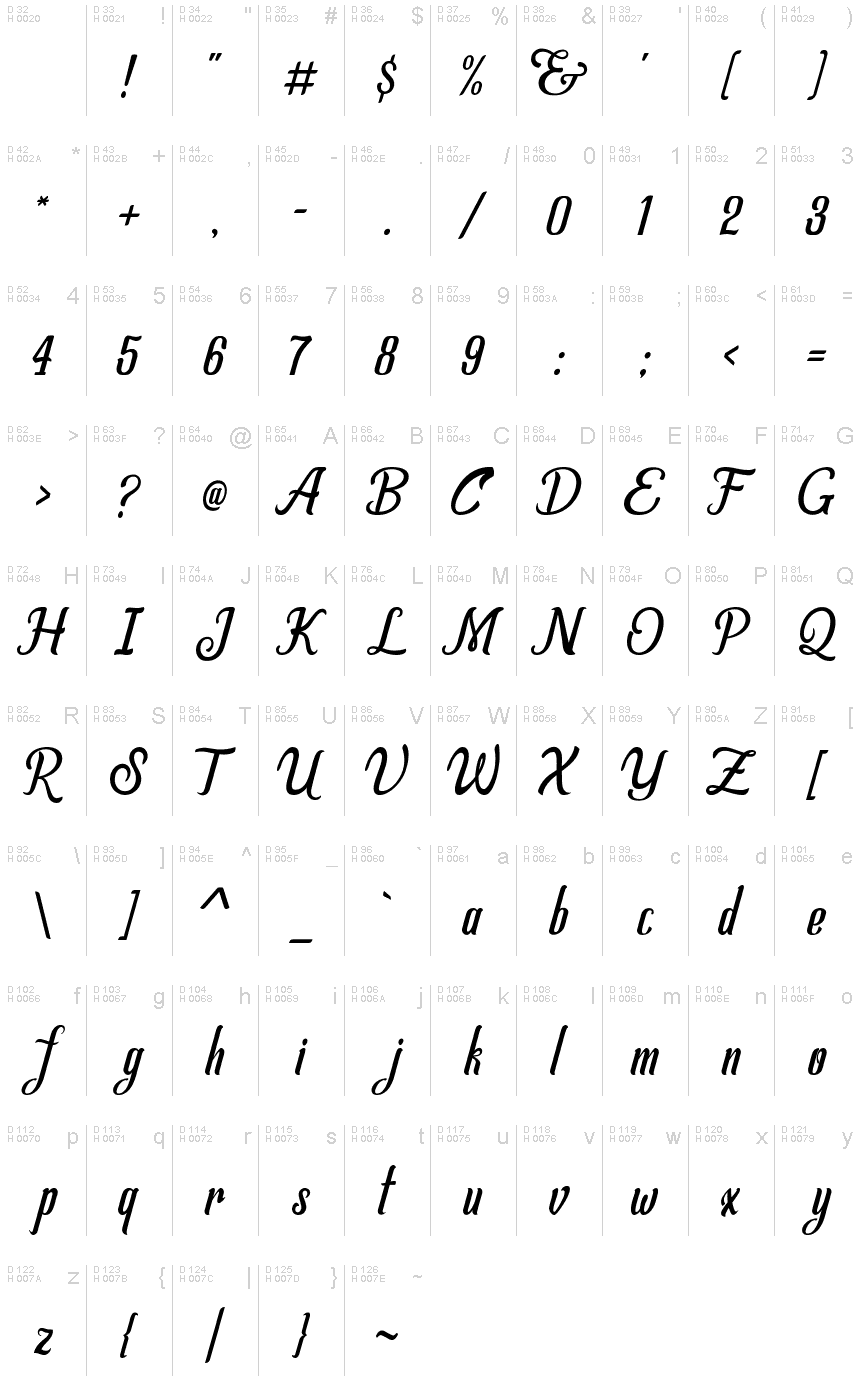
Allema
Allema Script Typeface is Modern Calligraphy. This font was designed by handwriting, and it has a modern and unique forms of calligraphy, the writing style is very soft. Allema has a very unique style of calligraphy, it is very suitable for use in the work of modern design.